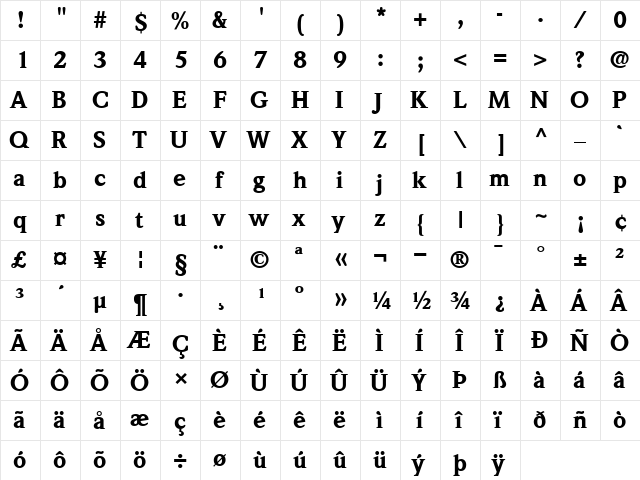
ITCWeidemann-Black Black Font Preview
ITCWeidemann-Black Black
Design Context for ITCWeidemann-Black Typeface
ITCWeidemann-Black is a composed and adaptable typeface that performs quietly and consistently across a wide range of design contexts.